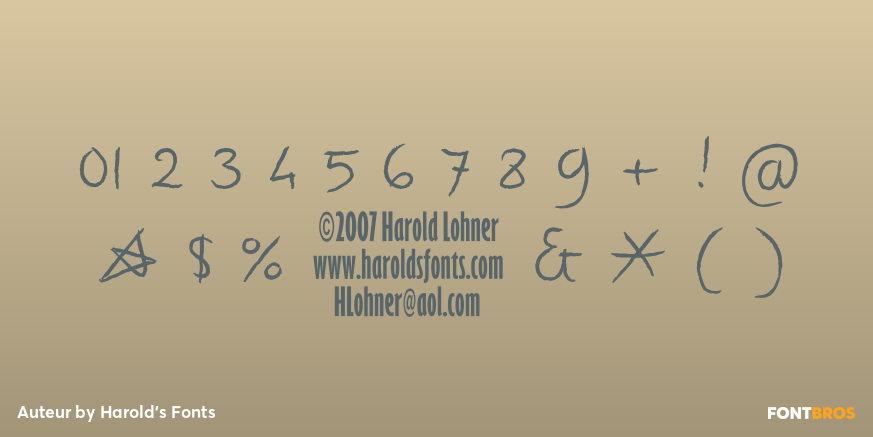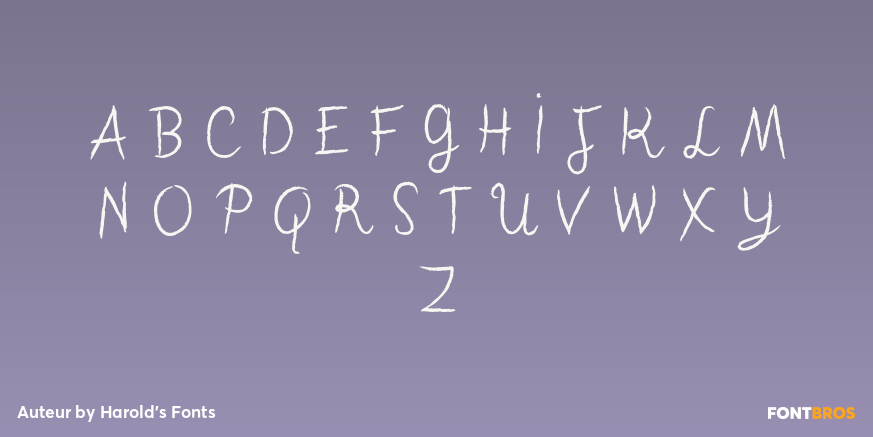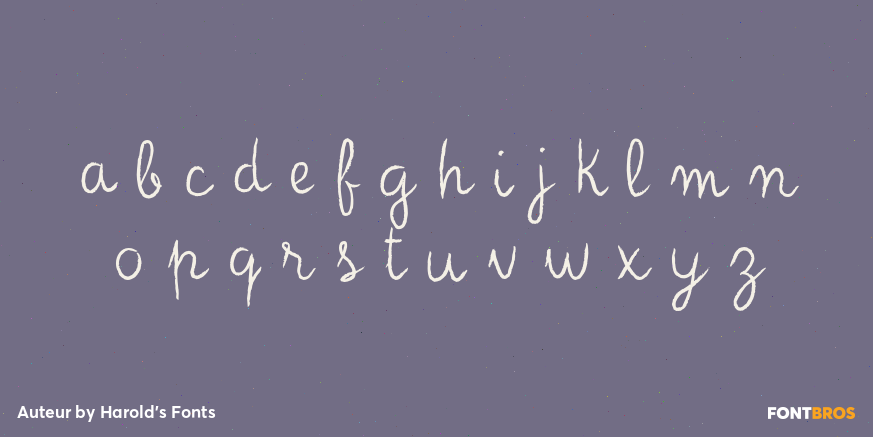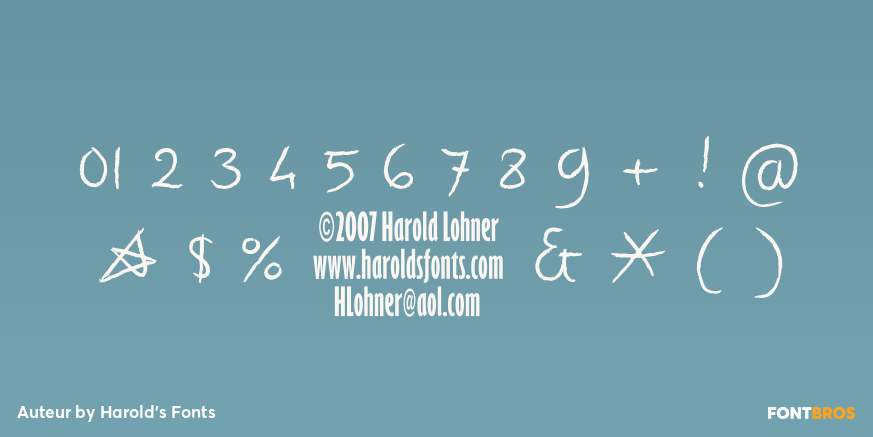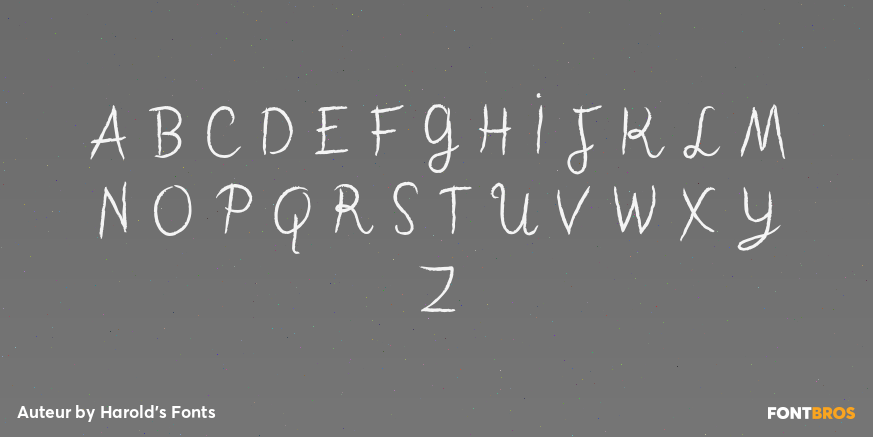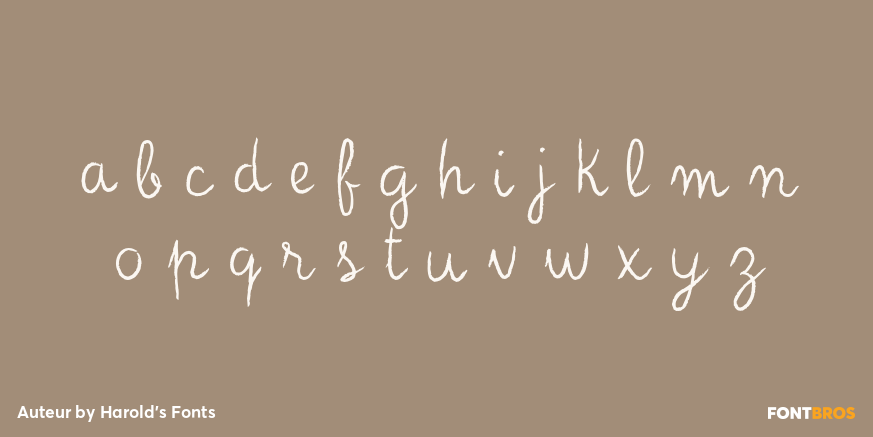
Auteur
Font Family by Harold's Fonts
AUTEUR was inspired by the work of Jean Cocteau, the French writer, filmmaker, and artist. This expressive and whimsical style can be seen in the opening titles of his 1946 film "Beauty and the Beast," as well as his numerous drawings and letters.
AUTEUR is a artful and casual script with rough edges, available in 2 weights.